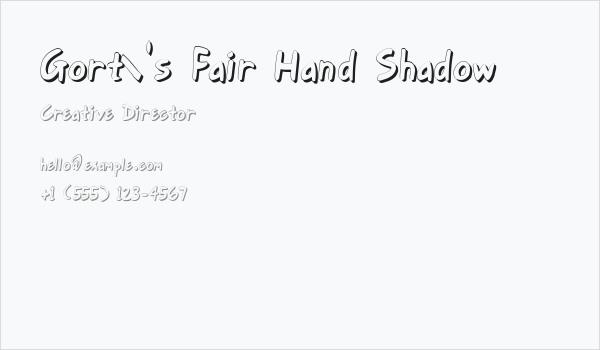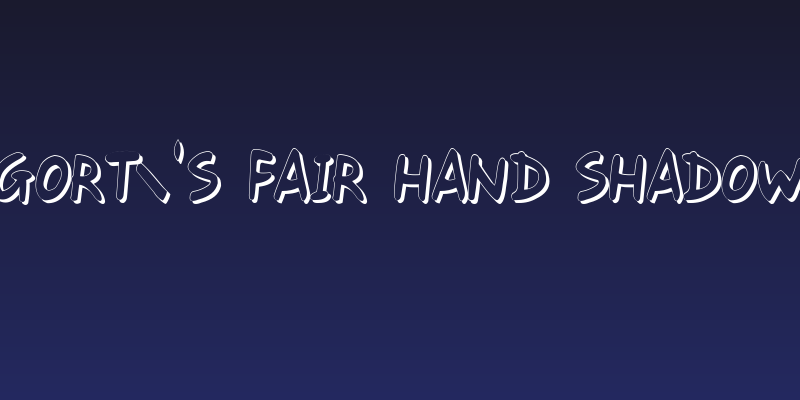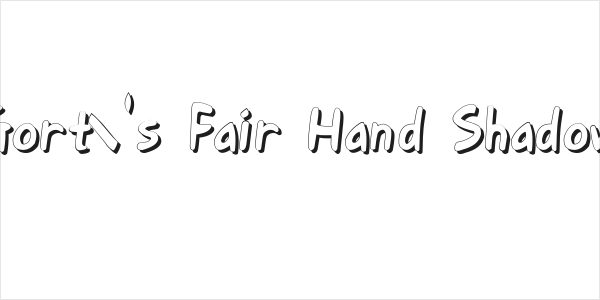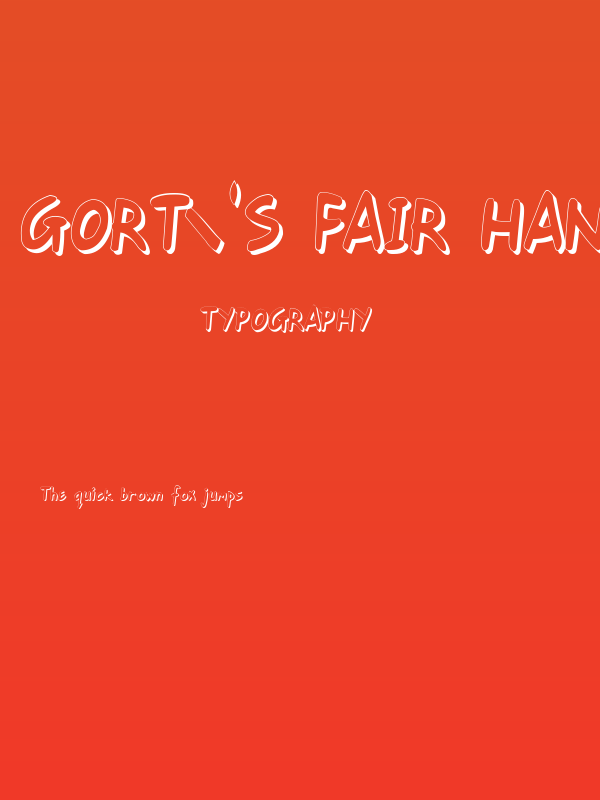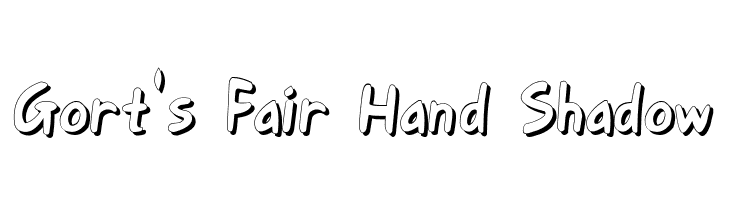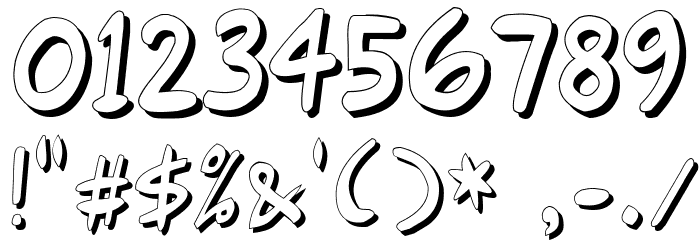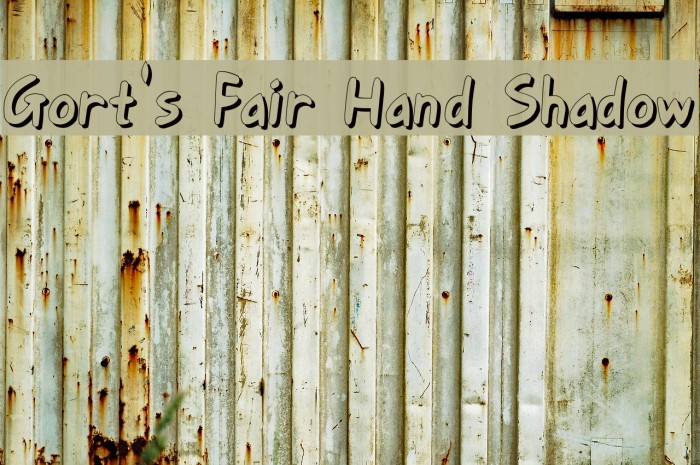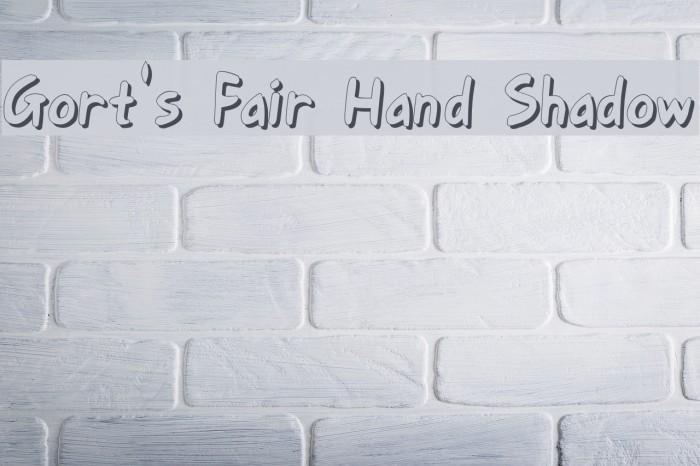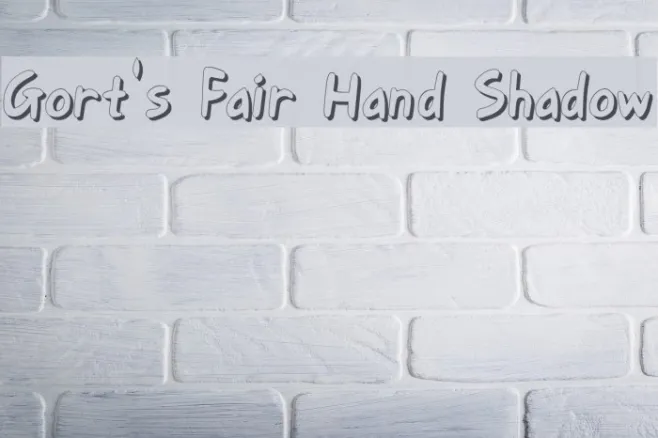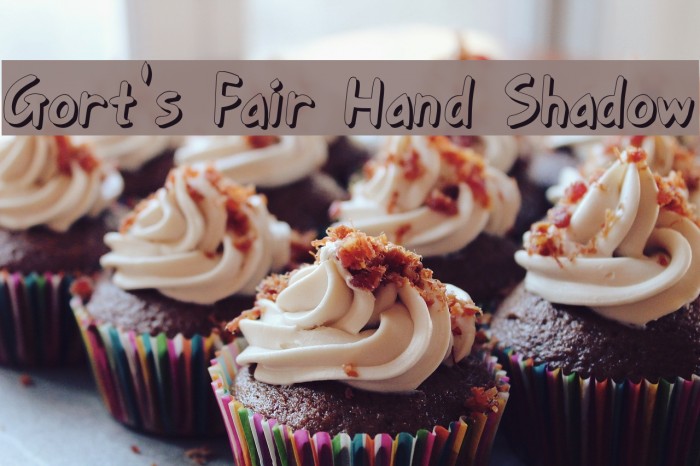
Gort's Fair Hand Shadow Font
Gort's Fair Hand Shadow Description
This playful and dynamic font features a bold, hand-drawn style with a distinctive shadow effect that adds depth and dimension. The characters are slightly irregular, giving them a casual and informal appearance. The uppercase and lowercase letters maintain a consistent style, with rounded edges and a smooth flow. The numbers and special characters are equally expressive, making the font versatile for various creative applications. The shadow effect enhances the visual impact, making it suitable for eye-catching designs.
| Overall Style | Playful, Casual |
| Proposed Projects | Ideal for children's book covers, playful branding, posters, and creative social media graphics. |